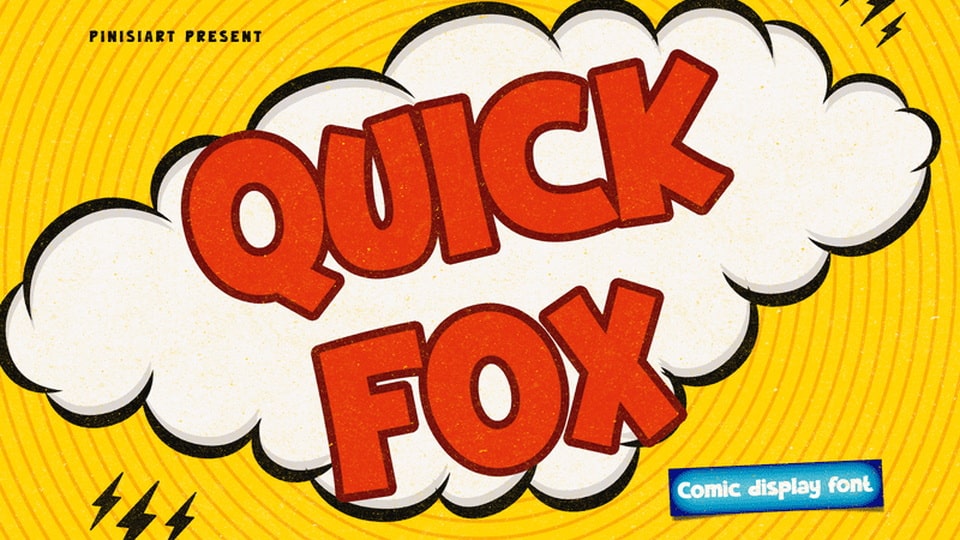
Download Quick Fox font, a comic display typeface. Do you want attention? YOU GOT IT! Everything that is written with QUICK FOX will get instantly recognizable and grab the reader’s attention.